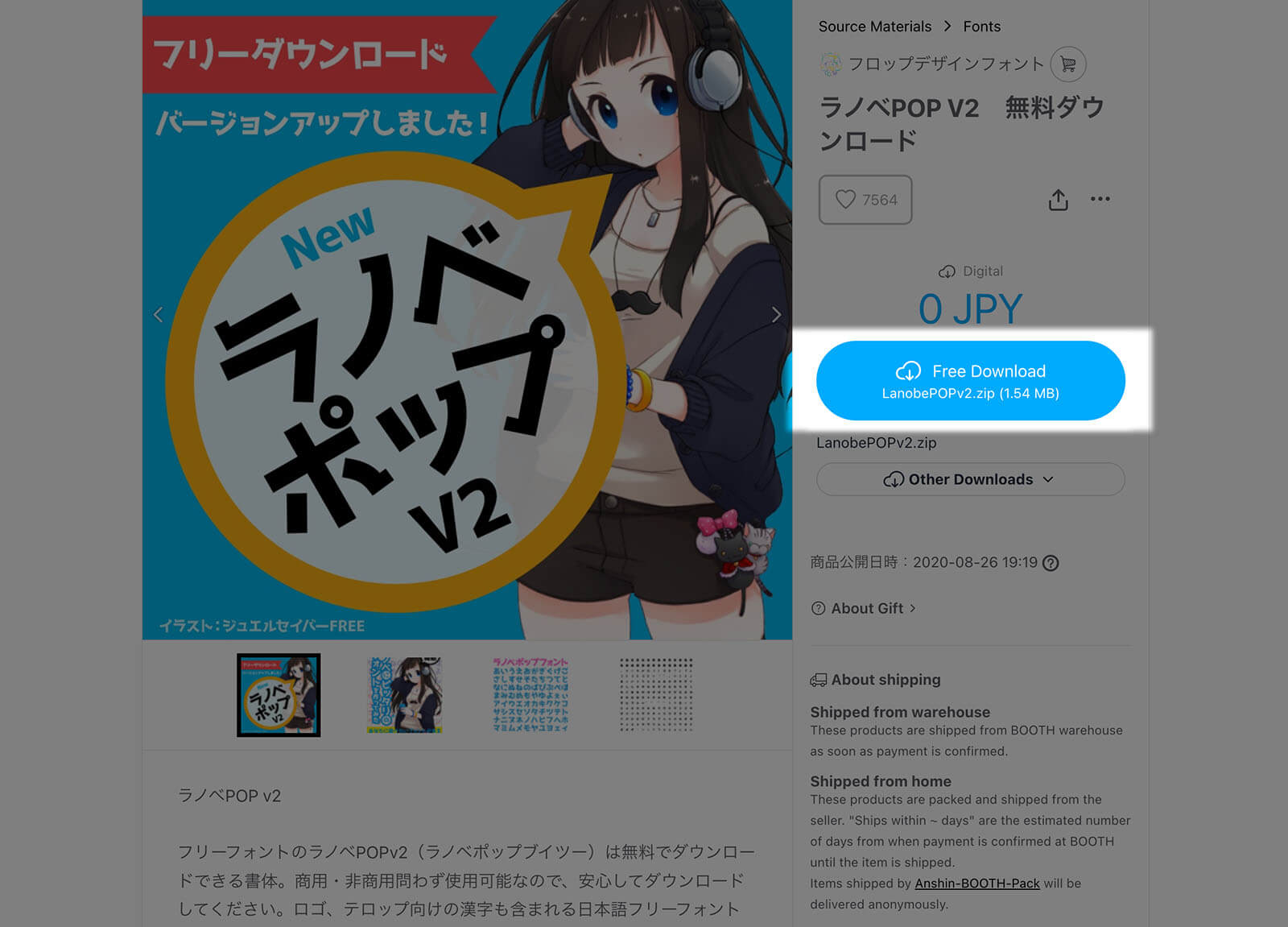
Light Novel POP Free Font
Light Novel POP is a pop style free Japanese font that is perfect for anime designs. The hiragana and katakana characters are originally designed by Kato Masashi from Fontna, while the other characters like alphanumeric and kanji characters were taken from the open source font M+. For related choice of this font, you can check out Kei Font.